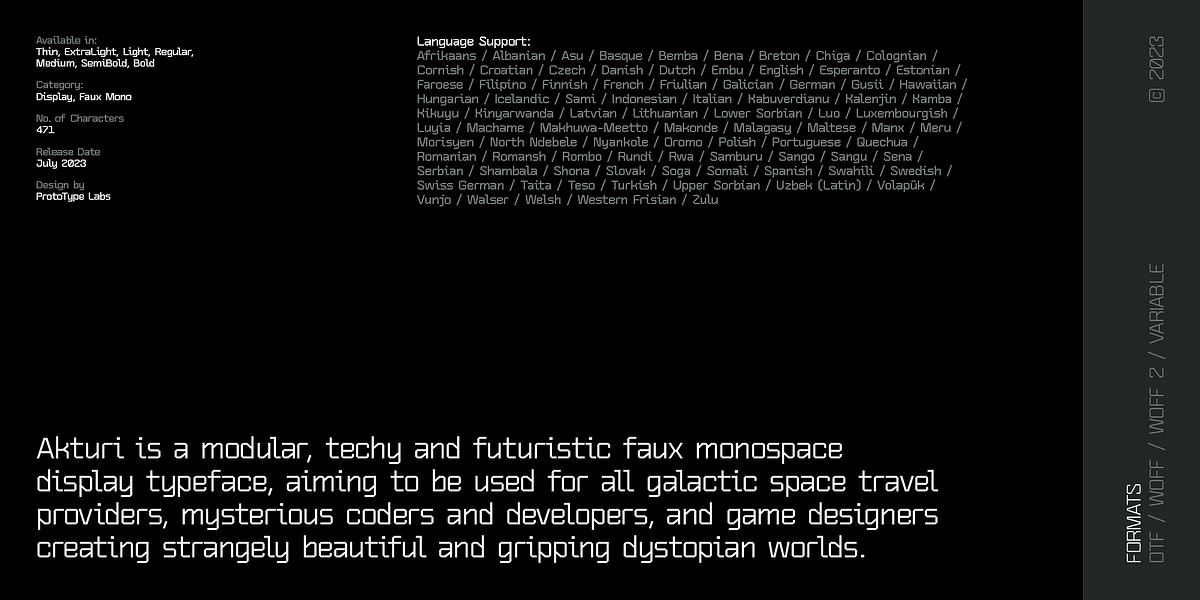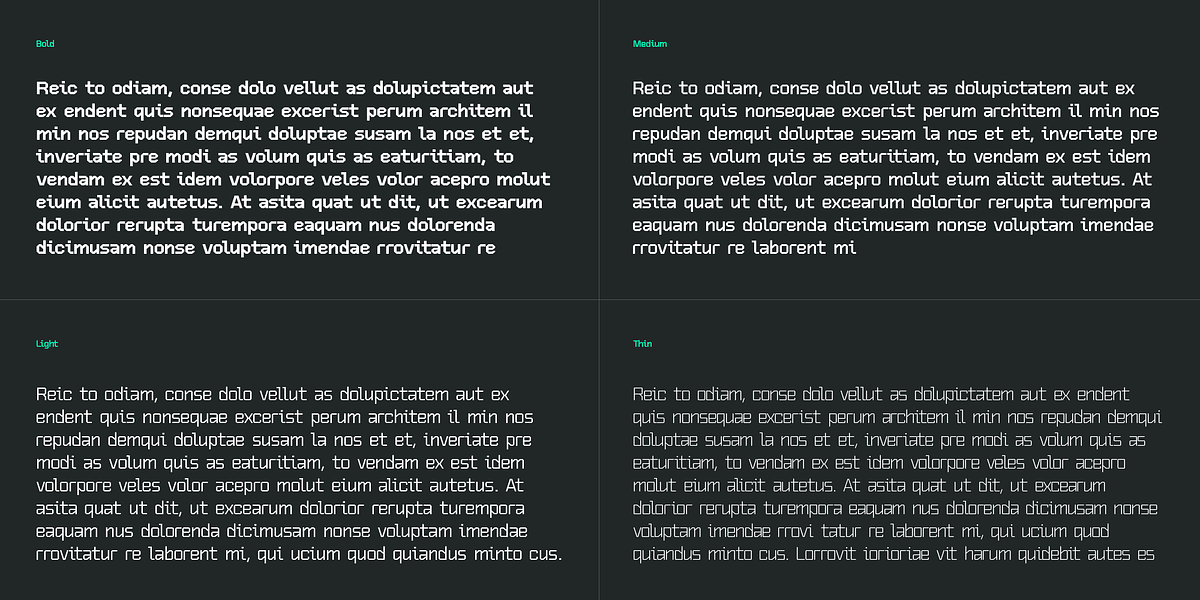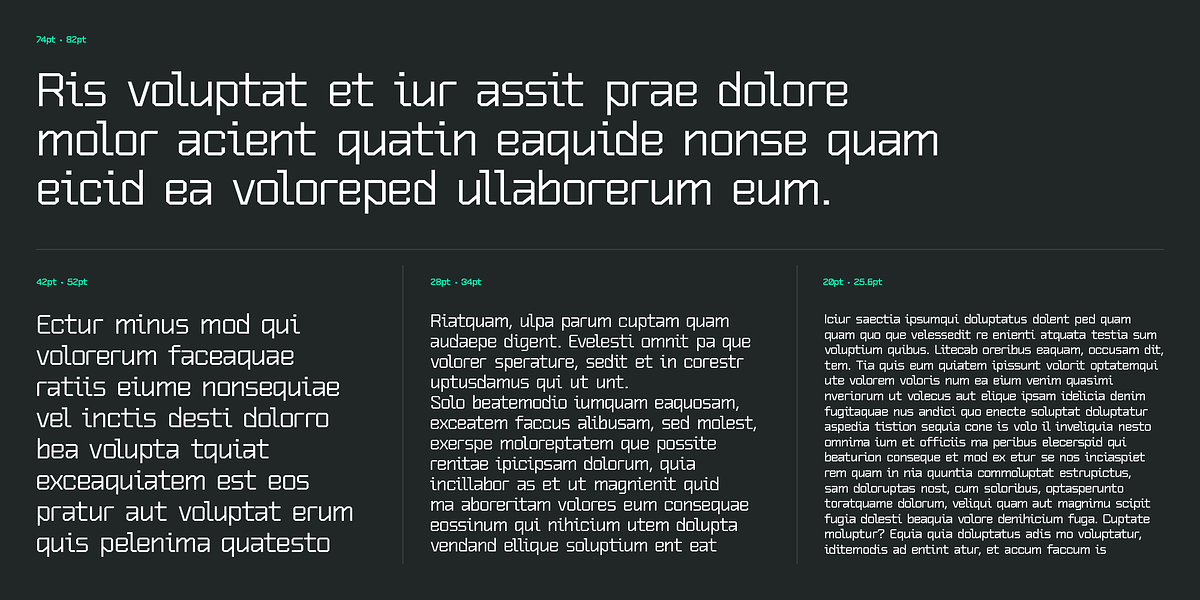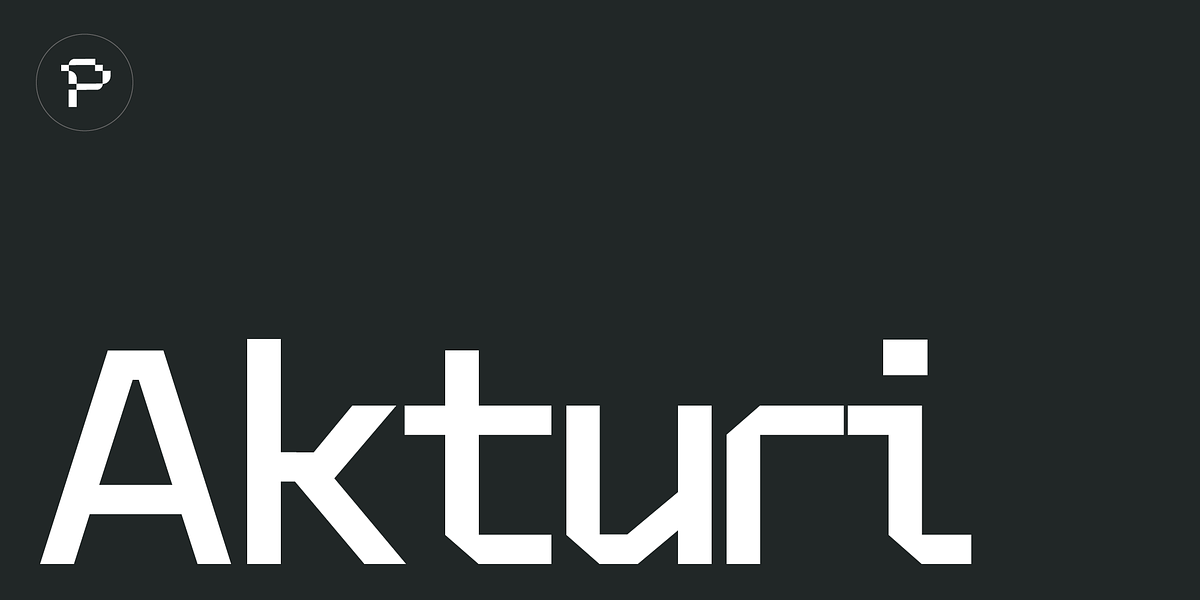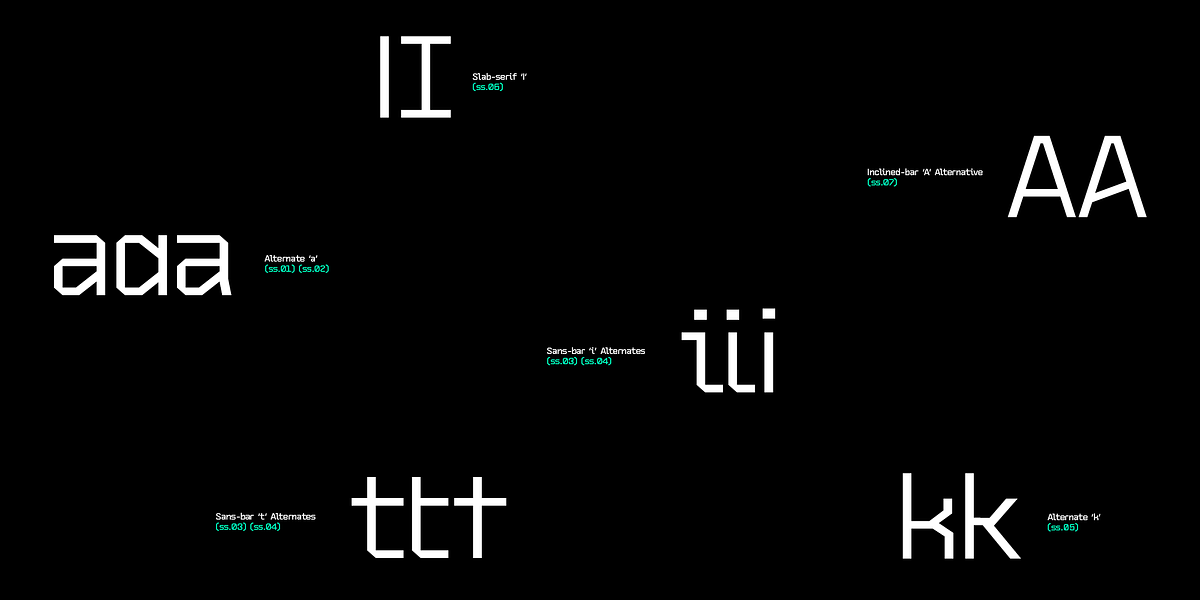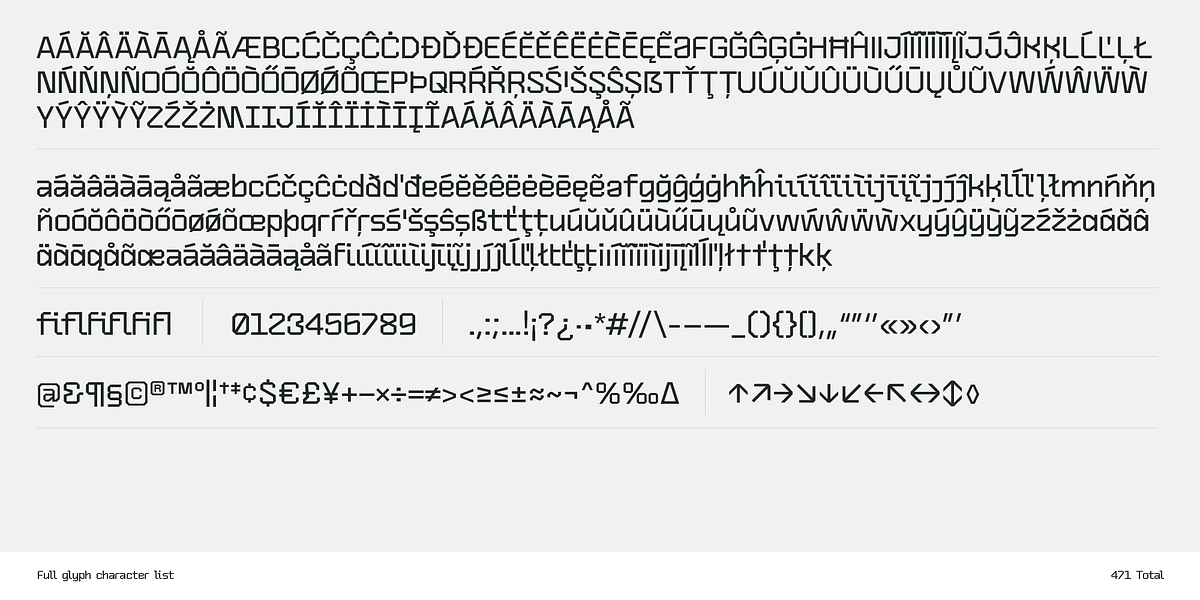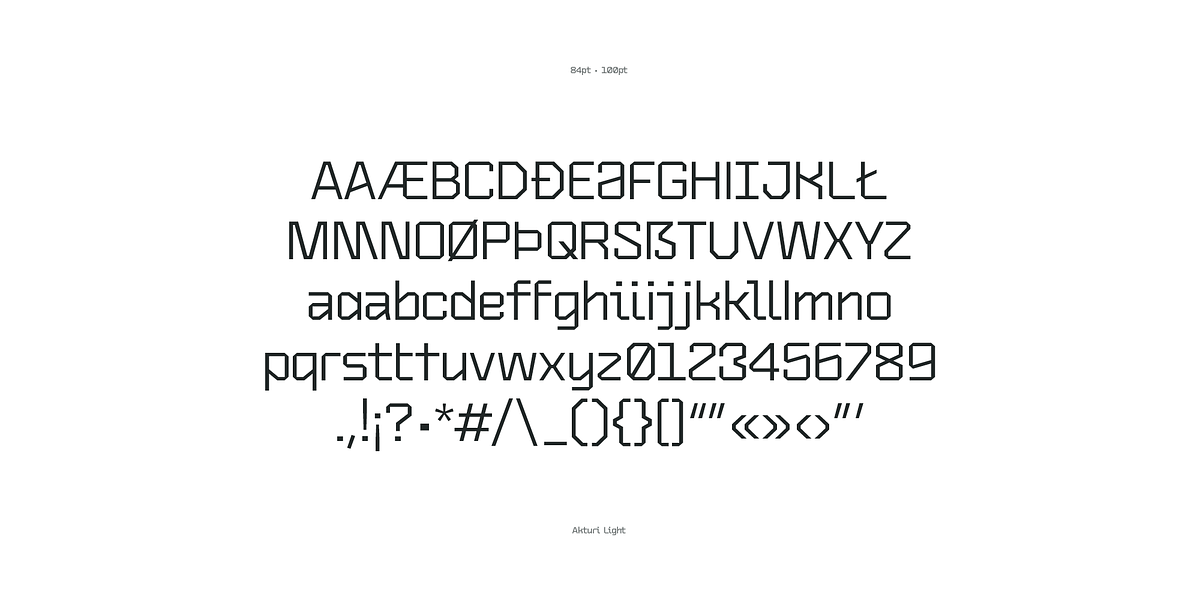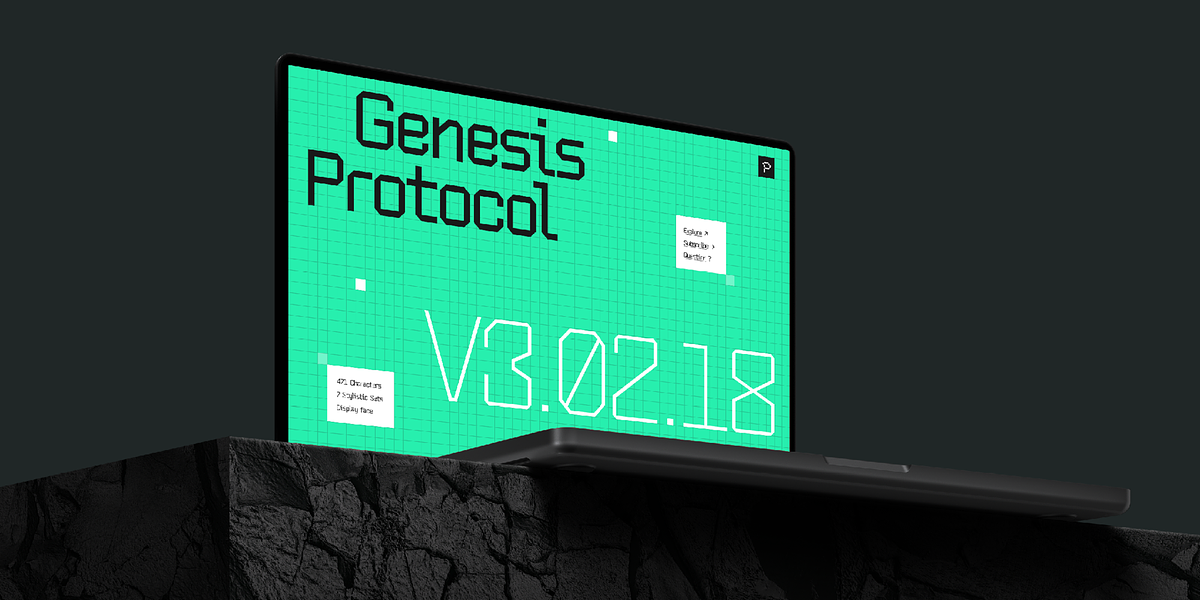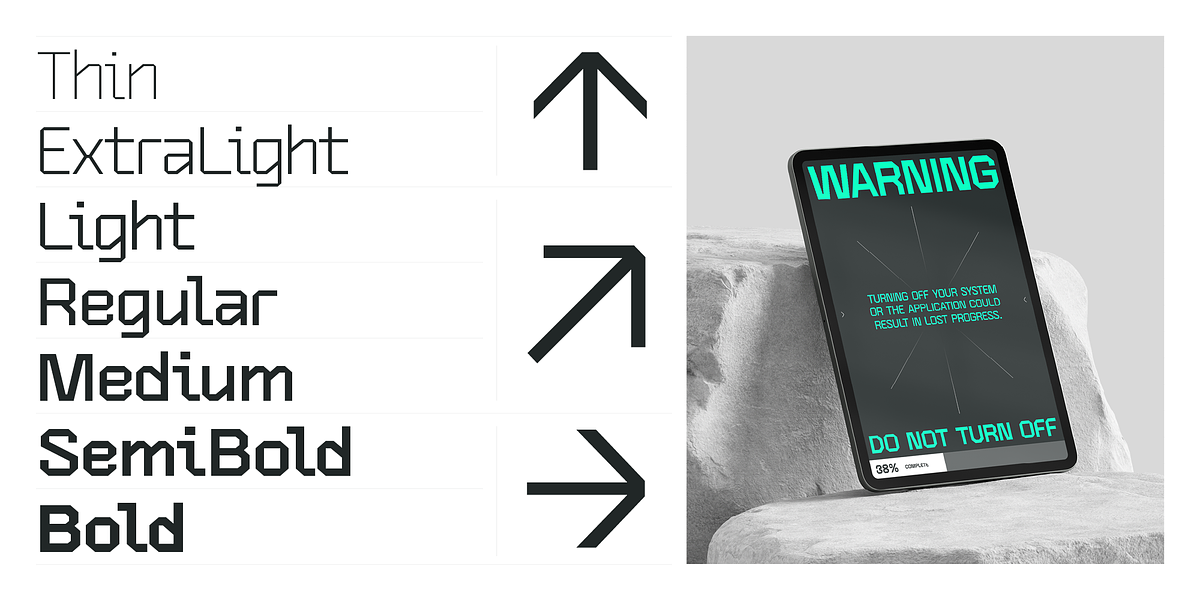
Akturi
Akturi is a futuristic display typeface designed for a range of applications. Its modular design and seven available weights offer versatility for diverse projects. The font's square sans-serif structure lends itself well to technology-focused designs, posters, and even game development.